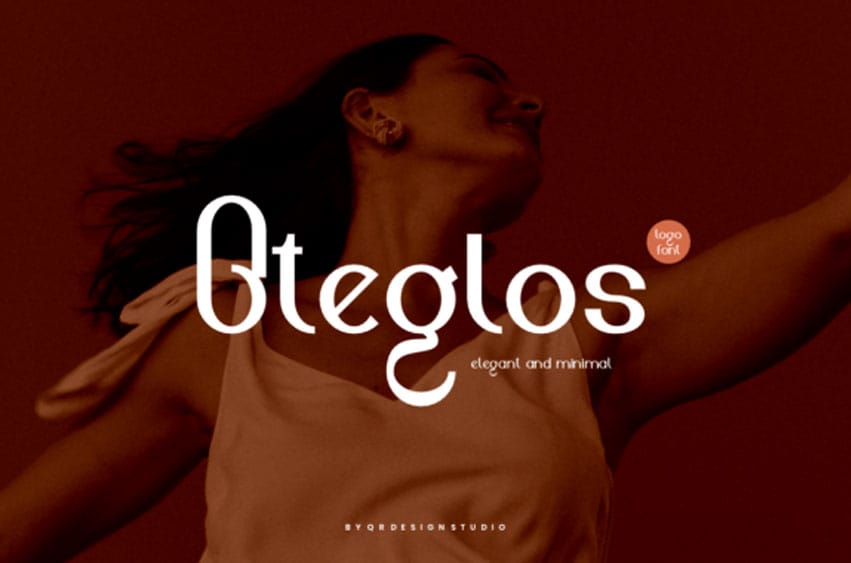
Oteglos Font is a bold and authentic display font. The font is suitable for any branding project, like logos, sports, and many more.
Outstanding in a wide range of contexts.